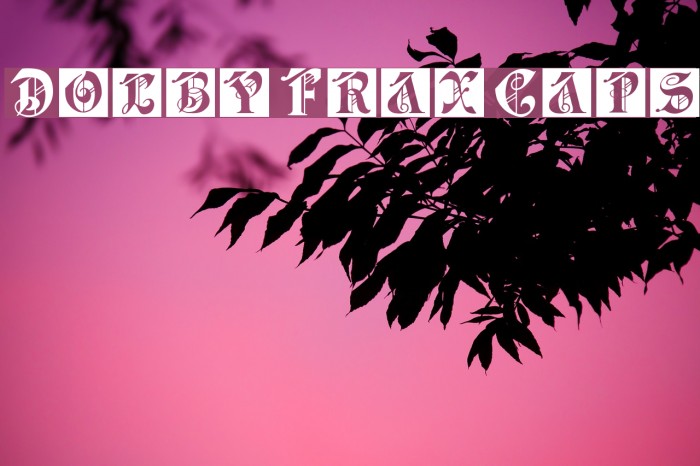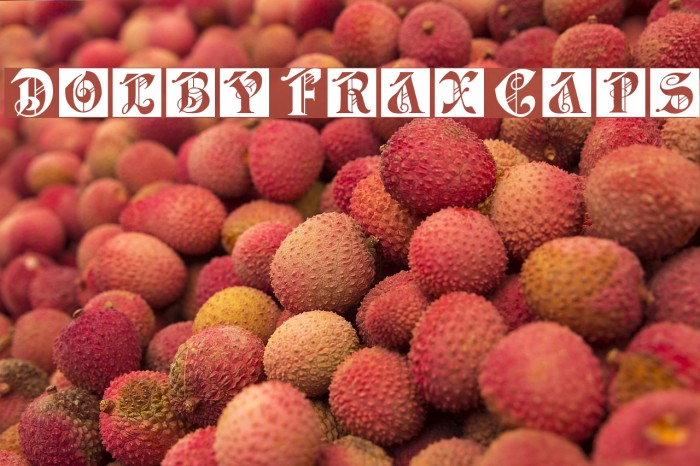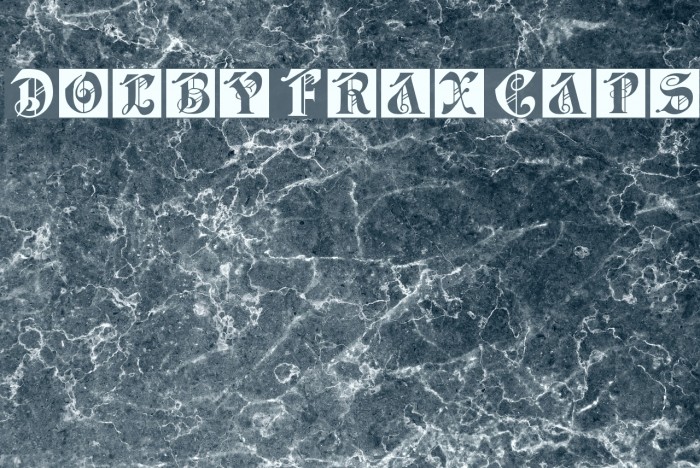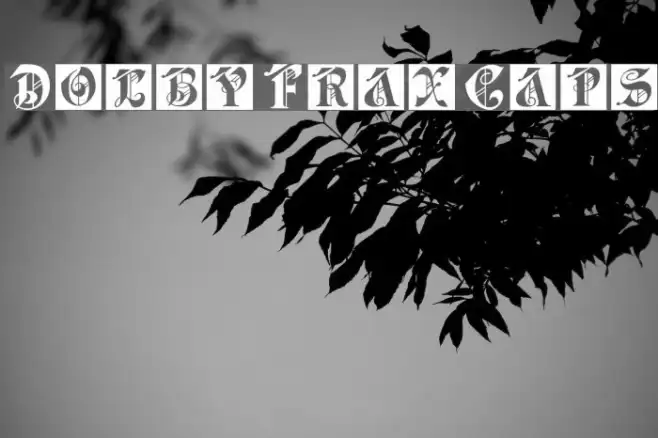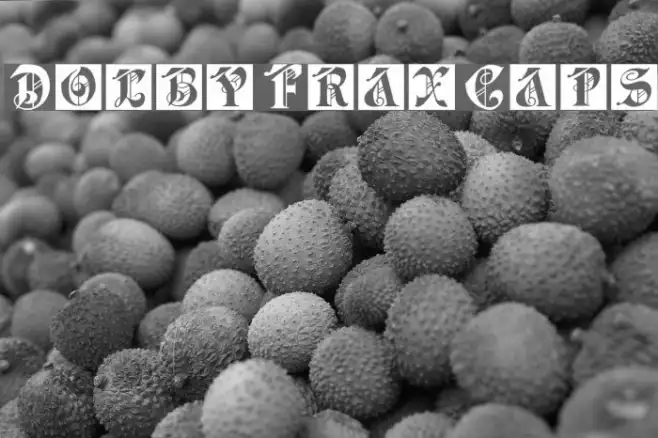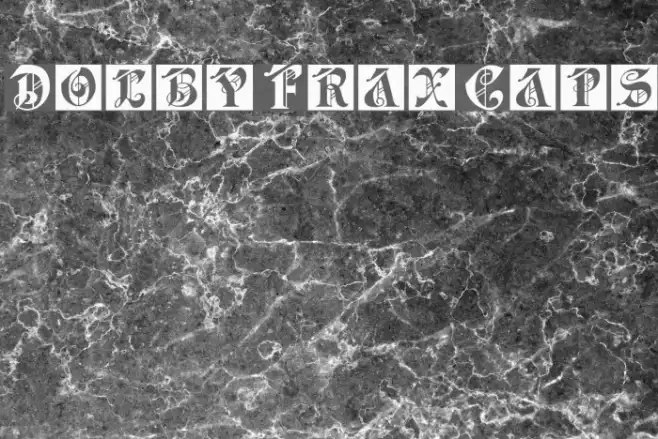
DolbyFraxCaps Font
This font features a highly decorative and intricate design, reminiscent of Gothic or medieval script styles. Each letter is adorned with elaborate flourishes and embellishments, creating a sense of elegance and grandeur. The uppercase letters are particularly ornate, with bold strokes and intricate detailing that give them a striking appearance. The lowercase letters maintain the decorative theme, though they are slightly more subdued in their embellishments. The overall aesthetic is both classic and dramatic, making it suitable for projects that require a touch of sophistication and historical flair.
A decorative and intricate font with Gothic-inspired embellishments.
- Proposed Projects: Ideal for use in wedding invitations, historical themed events, book covers, or any project requiring a touch of elegance and drama.